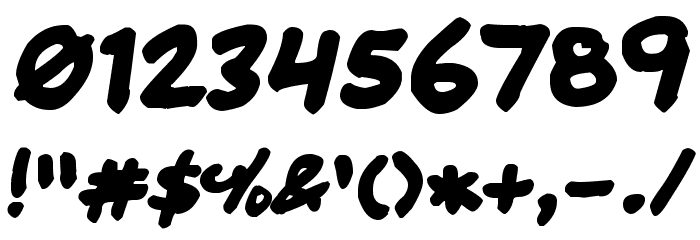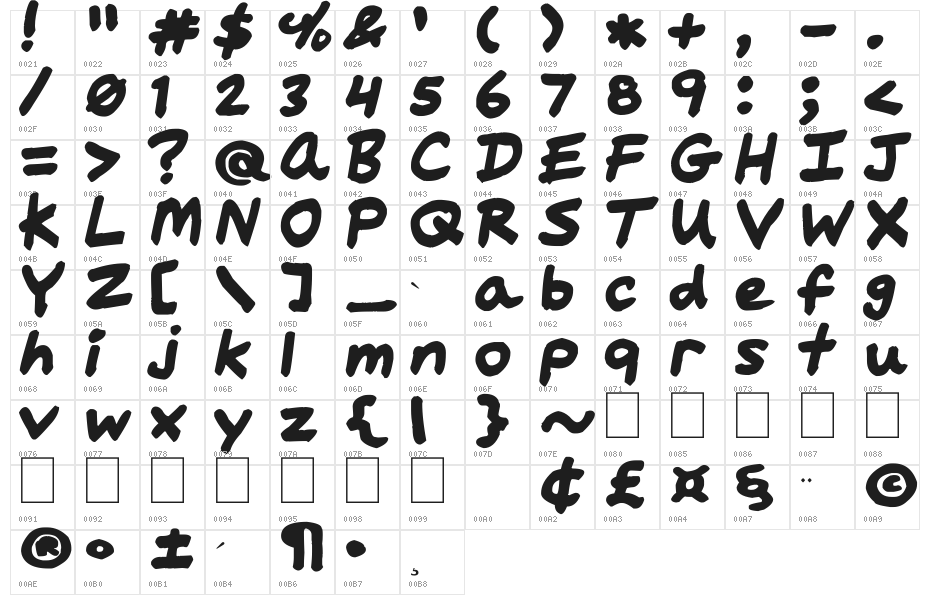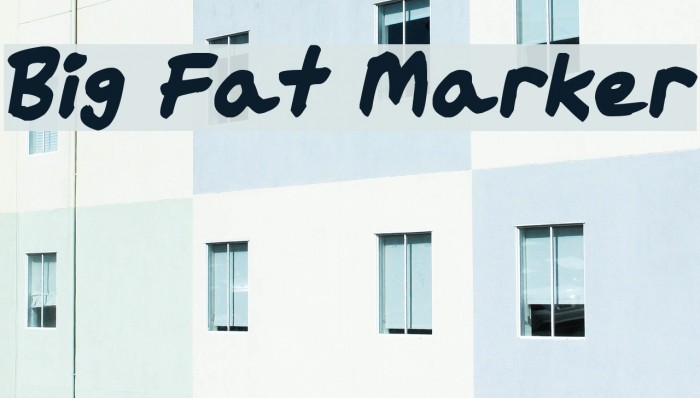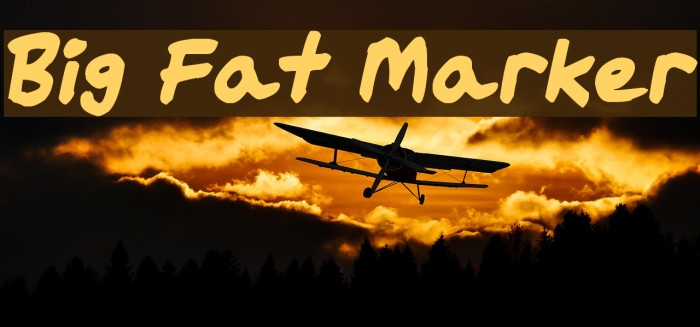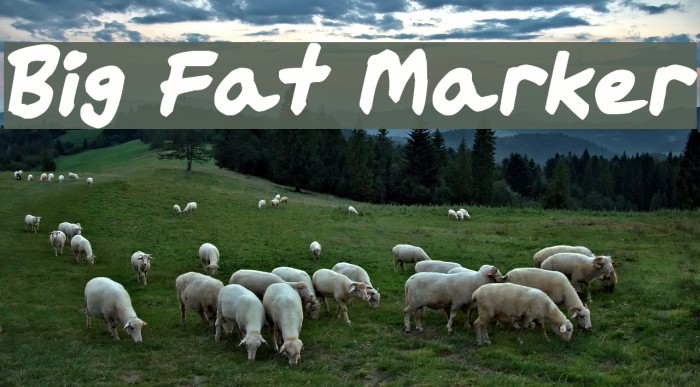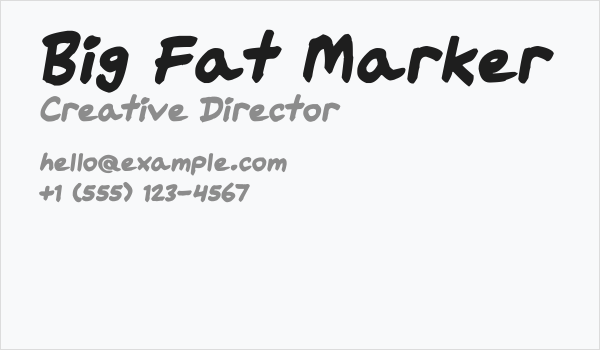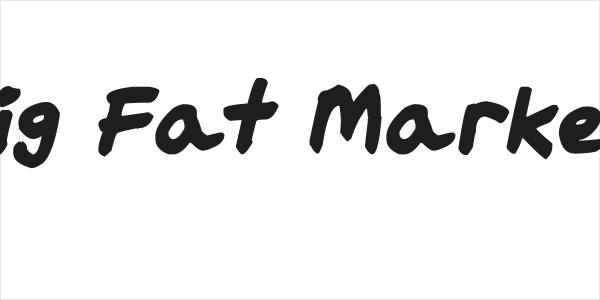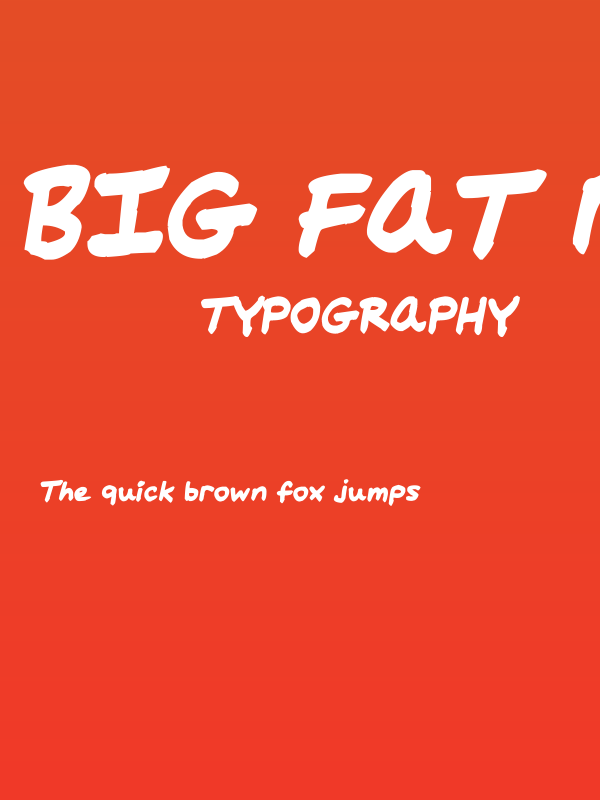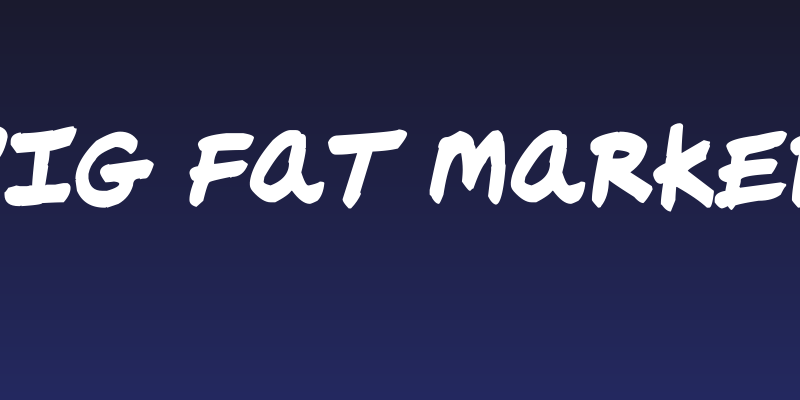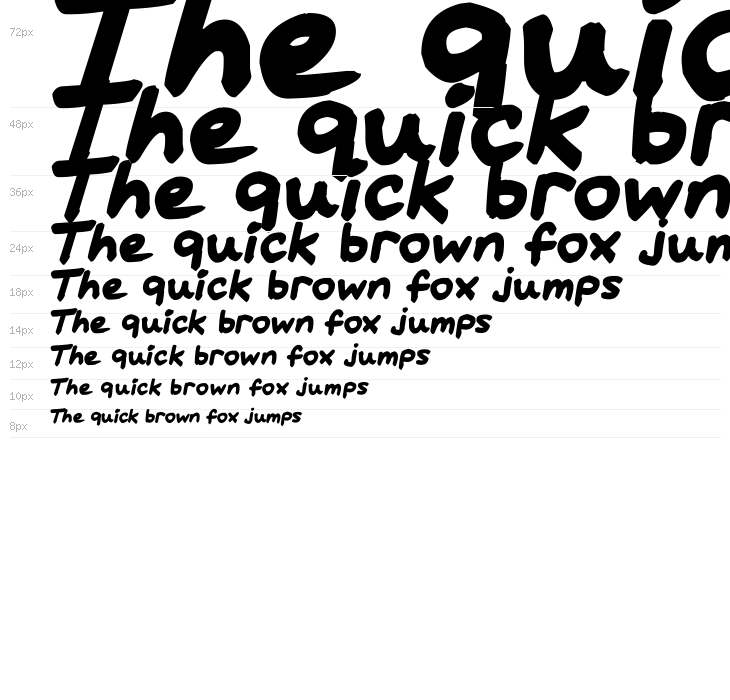
Big Fat Marker Font
Big Fat Marker Description
This font exudes a bold and playful character, reminiscent of handwritten text with a thick marker. The letters are rounded and slightly irregular, giving it a casual and approachable feel. The strokes are consistently thick, providing a strong visual impact. The uppercase and lowercase letters maintain a consistent style, with a slight slant that adds to its dynamic appearance. The numbers and special characters follow the same bold and rounded design, ensuring uniformity across all elements. This font is ideal for projects that require a fun and informal touch.
| Proposed Projects | Perfect for children's books, playful branding, posters, and casual invitations. |